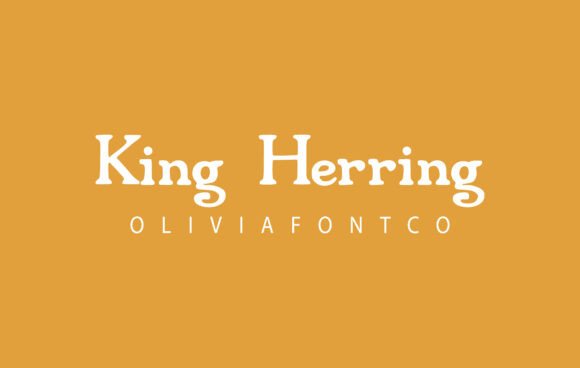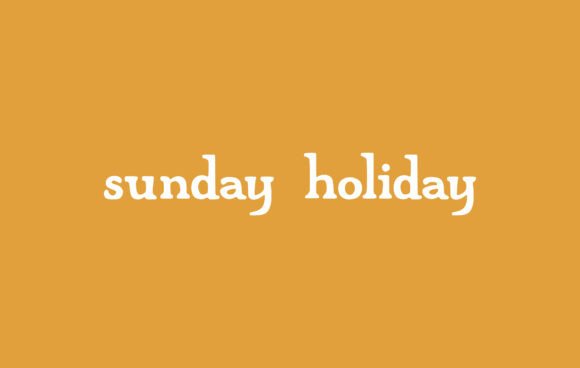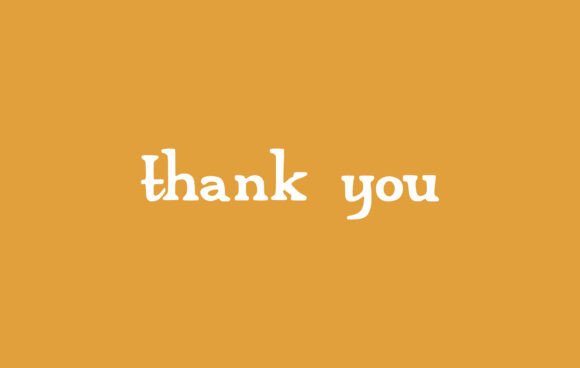
King Herring Font: A Cute Handwritten Font for Branding & Social Media
About the King Herring Font
Meet King Herring Font, a stunning font that brings a touch of elegance and professionalism to any design. King Herring font is an authentic handwritten font with a romantic touch. Expertly designed to be a true favorite, this font has the potential to take your creative ideas to the highest level
King Herring’s romantic, handwritten style shines in headlines, short-form text, and branding applications where a touch of elegance is desired. It works exceptionally well for wedding invitations, stationery, and short social media posts. However, its less-than-optimal legibility makes it unsuitable for body text or extended paragraphs in UI contexts.
Its inherent charm pairs beautifully with clean sans-serif fonts like Open Sans for a balanced contrast, or a more playful script like Pacifico for a cohesive, hand-drawn feel. For a modern edge, consider pairing it with a geometric sans-serif such as Montserrat.
King Herring exudes a sophisticated yet approachable personality; it’s both romantic and friendly, making it ideal for brands that wish to convey a sense of warmth and quality.
King Herring Font Usage Examples
King Herring Font Example